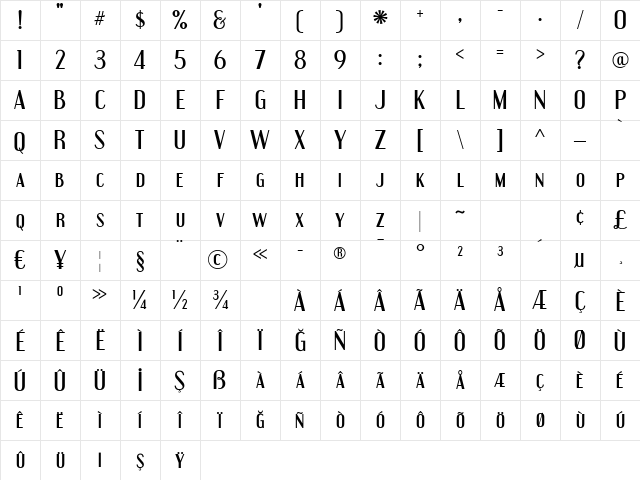
TrSah Engebrechtre Regular Free Font
TrSah Engebrechtre Regular
Design Context for TrSah Engebrechtre
TrSah Engebrechtre is a composed and adaptable typeface that performs quietly and consistently across a wide range of design contexts.
Pro Tip: Use TrSah Engebrechtre in both headline and body roles to test its range before committing to a single application.